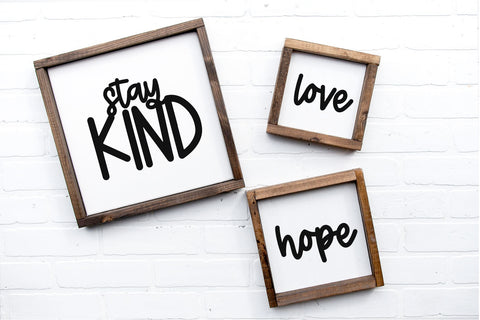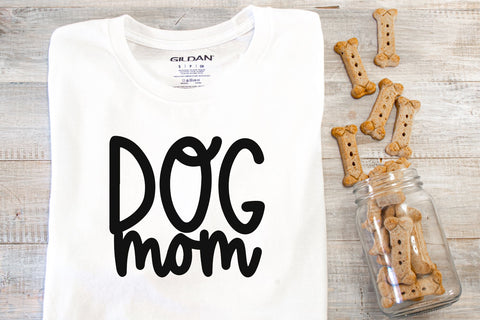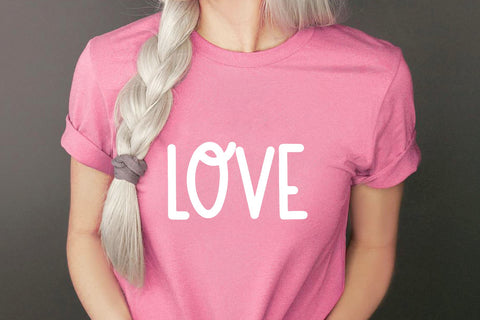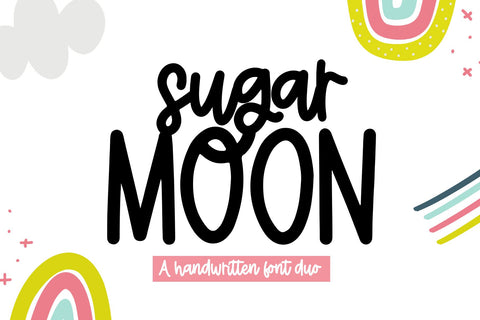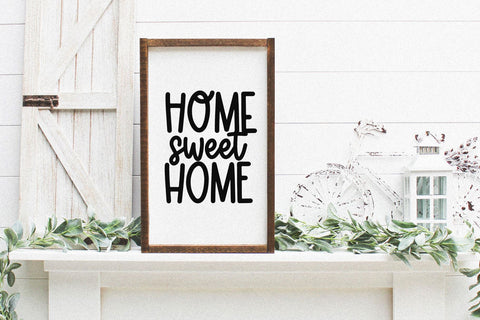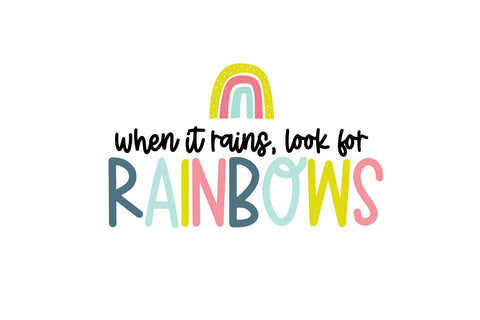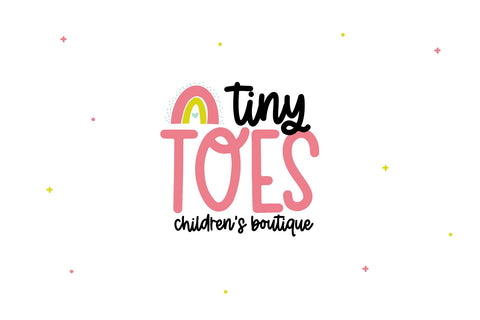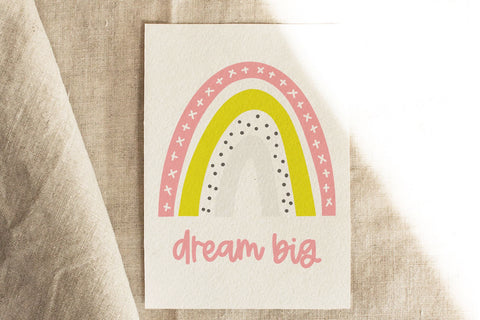
Sugar Moon - Print & Script Font Duo
Sugar Moon is a handwritten font pair.
This duo is perfect for quotes, headings, blogs, logos, brandings, invitations and more!
Accent characters are included.